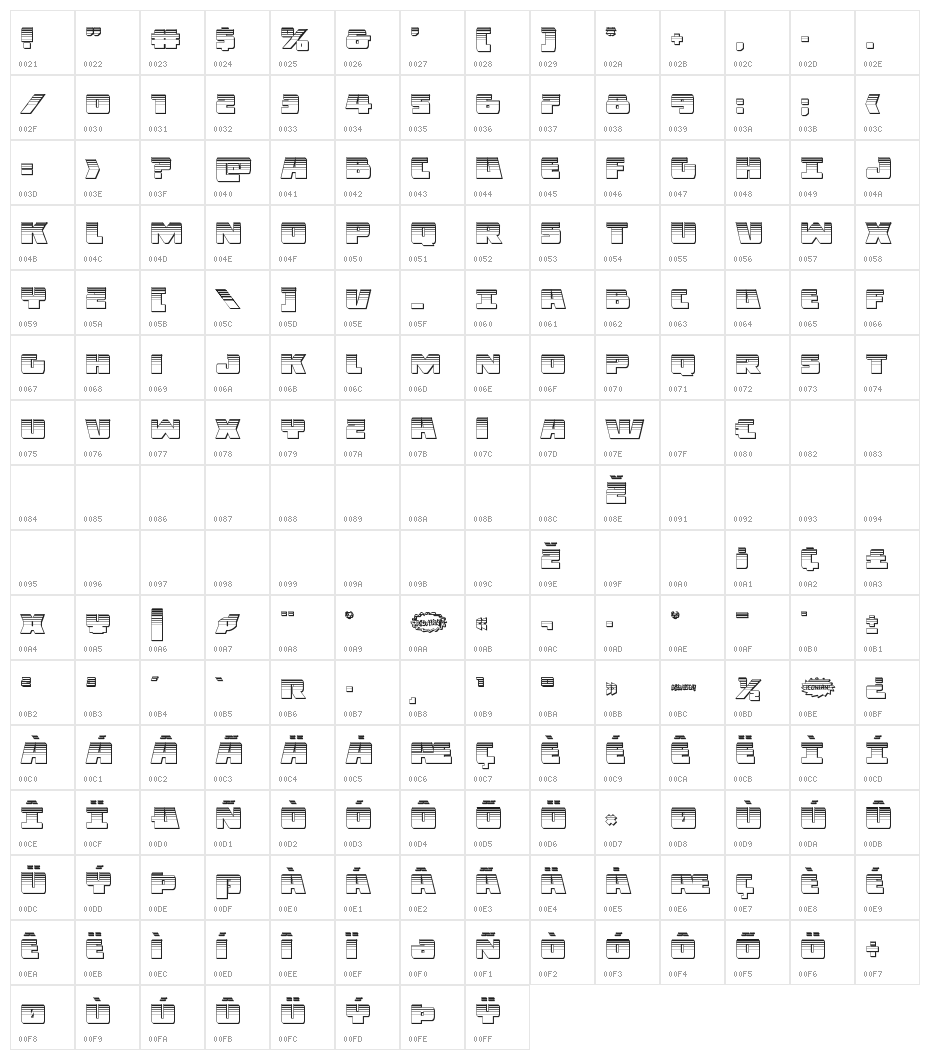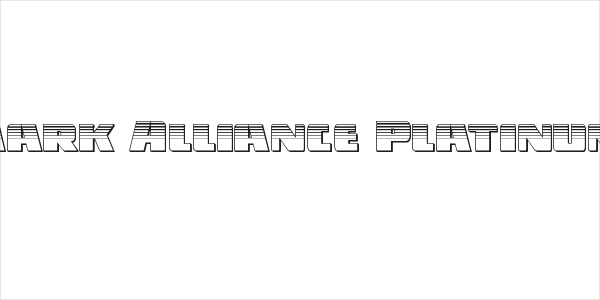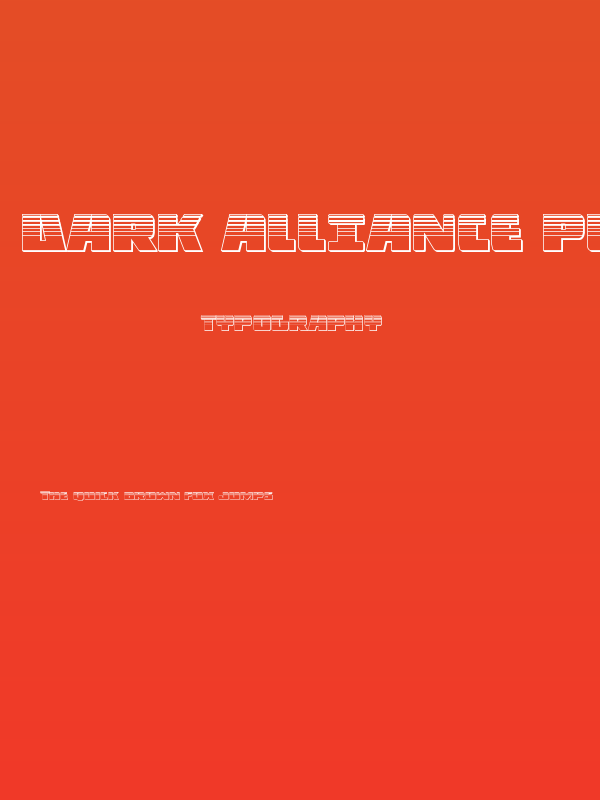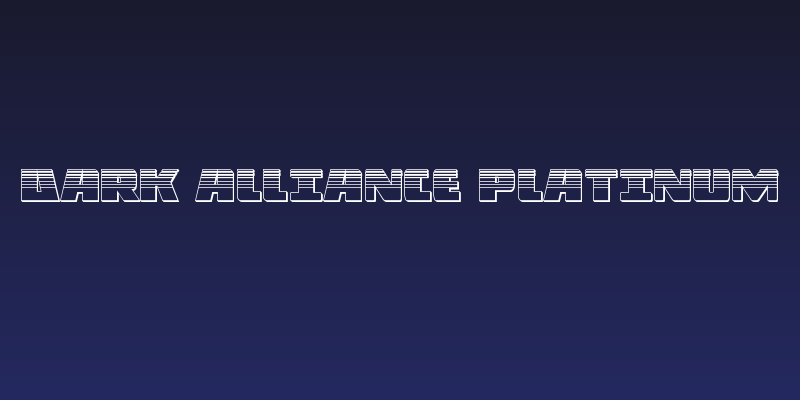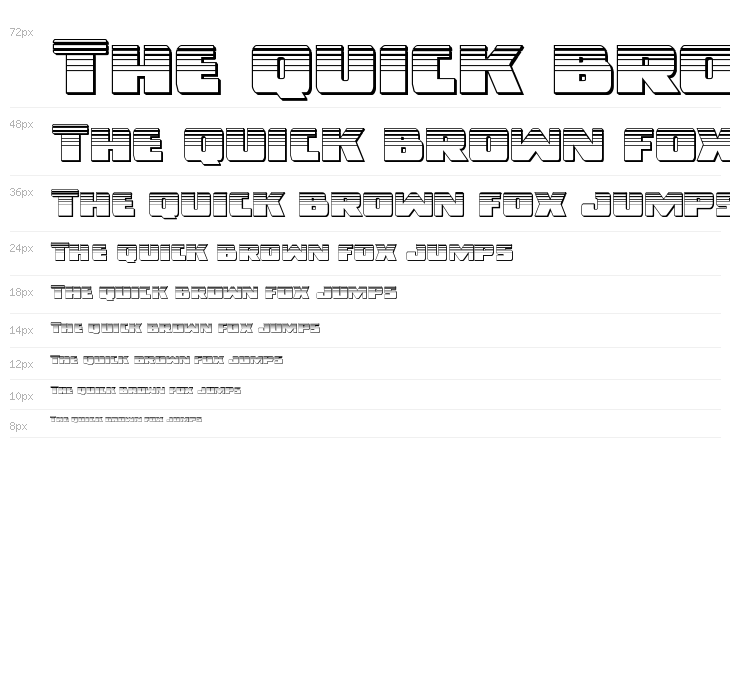
Dark Alliance Platinum Font
Dark Alliance Platinum Description
This font features a bold, futuristic design with a three-dimensional effect created by layered lines and shadows. The characters are uppercase and have a geometric, block-like structure, giving them a strong and impactful appearance. The design incorporates sharp angles and clean lines, enhancing its modern and tech-inspired aesthetic. The numbers and special characters follow the same style, ensuring consistency across all glyphs. This font is ideal for projects that require a bold and attention-grabbing typeface.